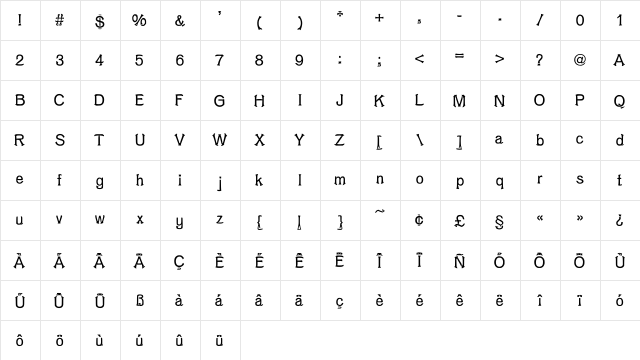
ShrimpFriedRiceNo1 Medium
Design Context for ShrimpFriedRiceNo1 Typeface
ShrimpFriedRiceNo1 offers clean, dependable letterforms without strong stylistic allegiance, making it a practical choice for designers who need flexibility.
Pro Tip: Use ShrimpFriedRiceNo1 in both headline and body roles to test its range before committing to a single application.